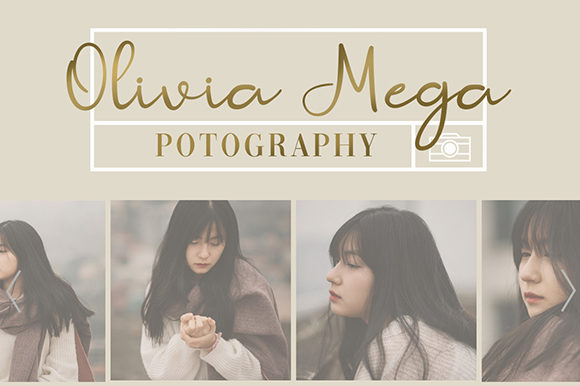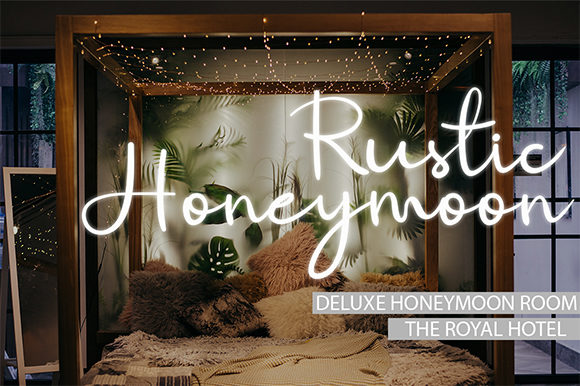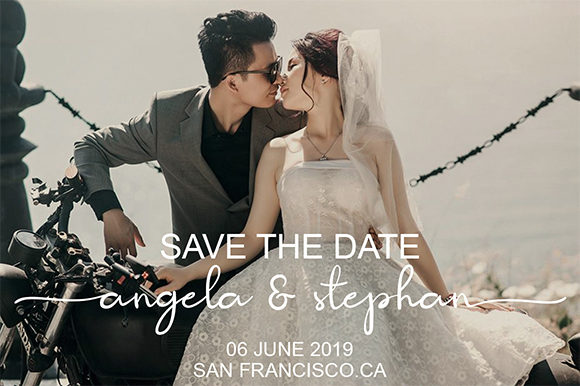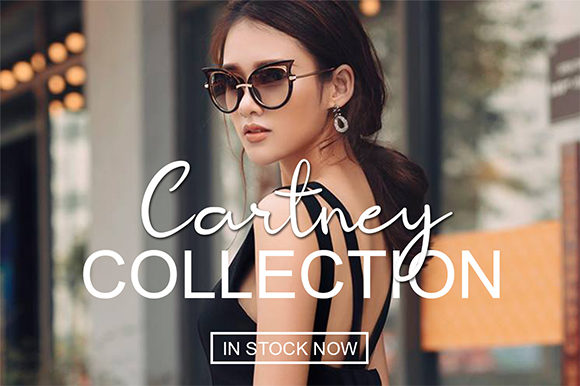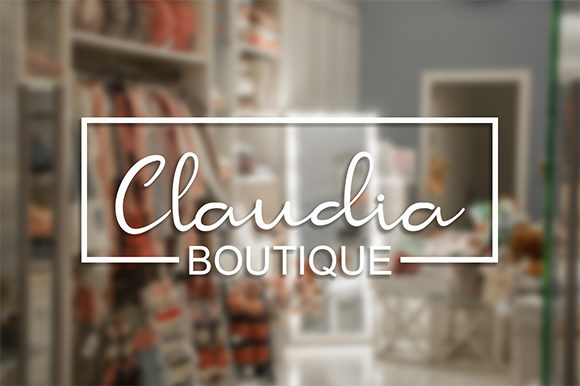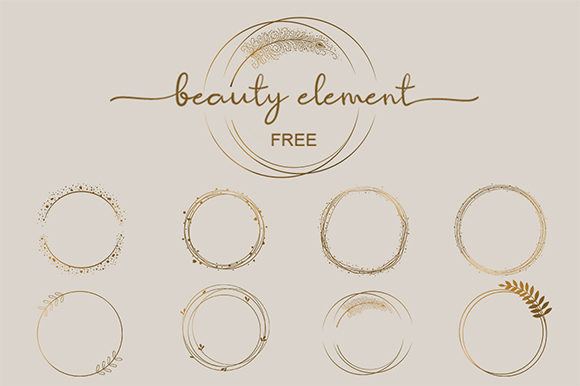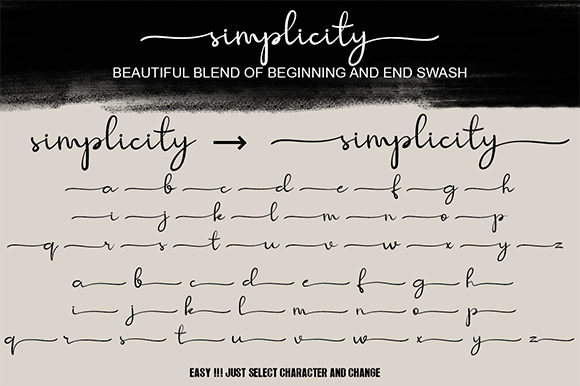
Simplicity Font
About Simplicity Font
The Simplicity is an elegant script font. Its alternate swashes are allowing you to create beautiful hand-made typography in an instant.
It can be used for branding, logos, brochures, business cards, wedding stationary invitations, and every other design which needs a handwritten touch.